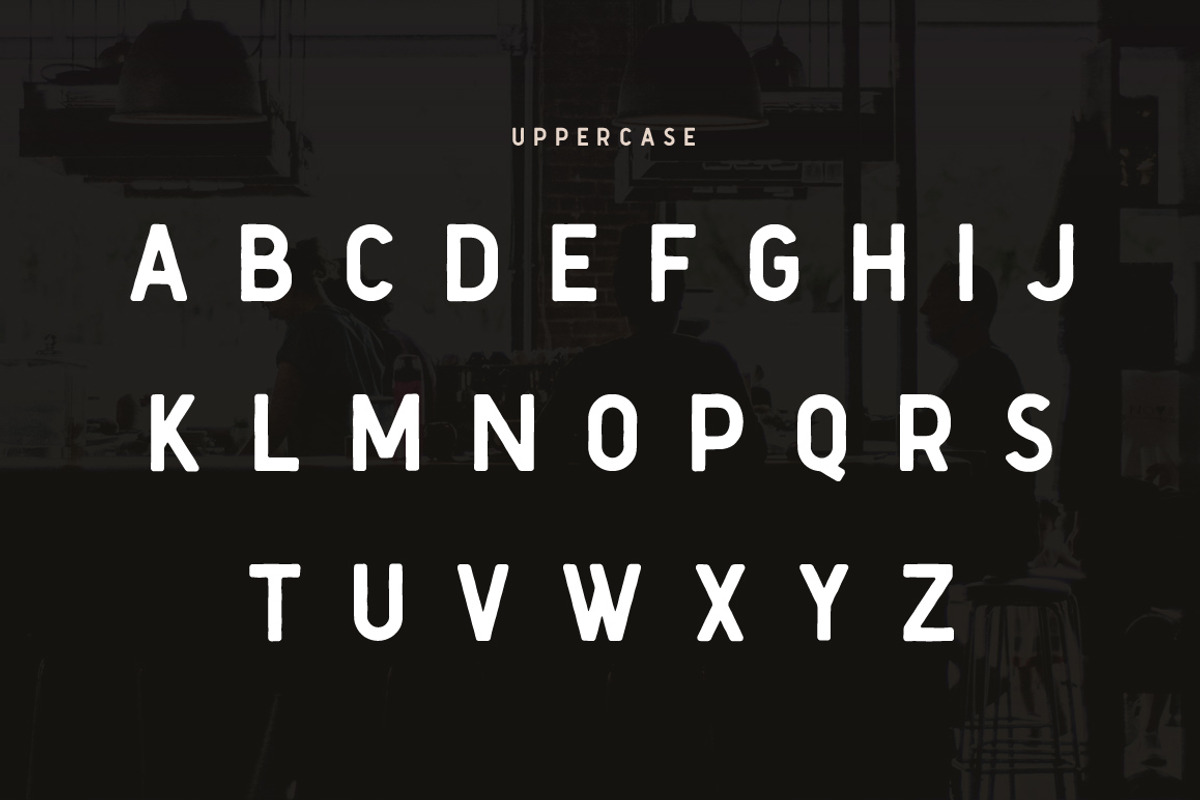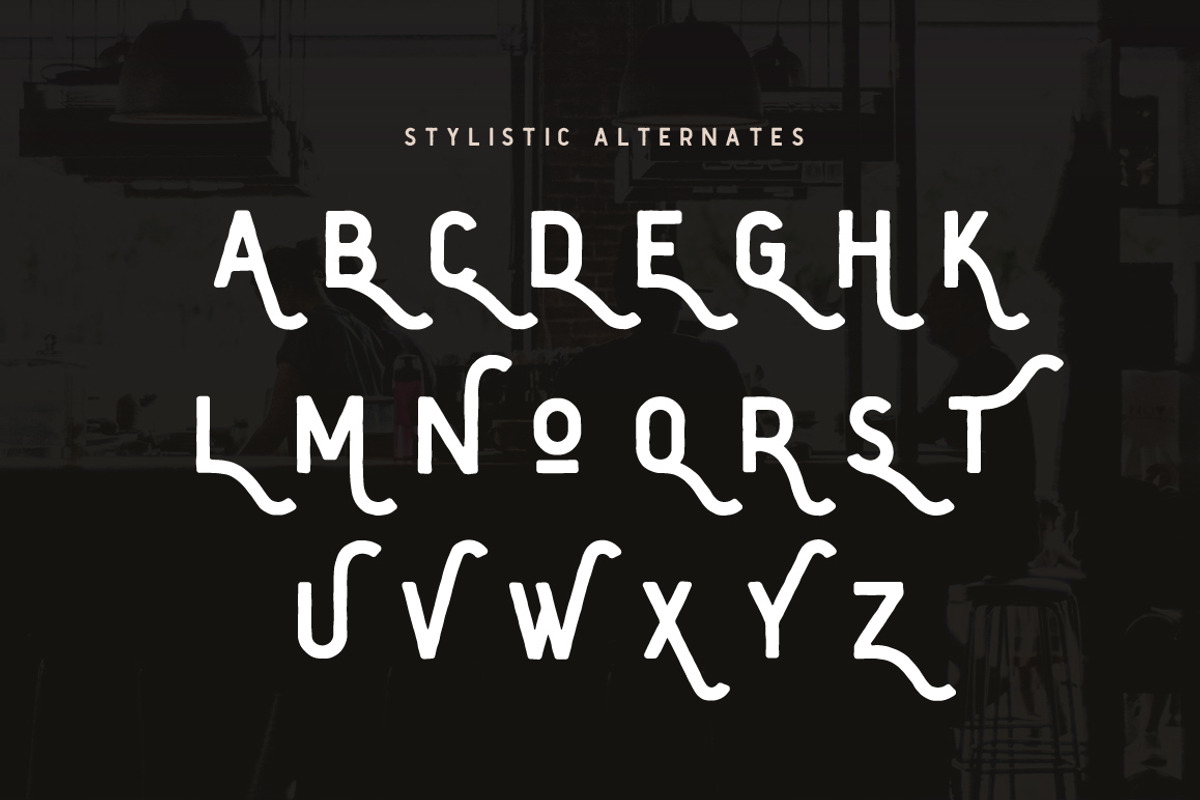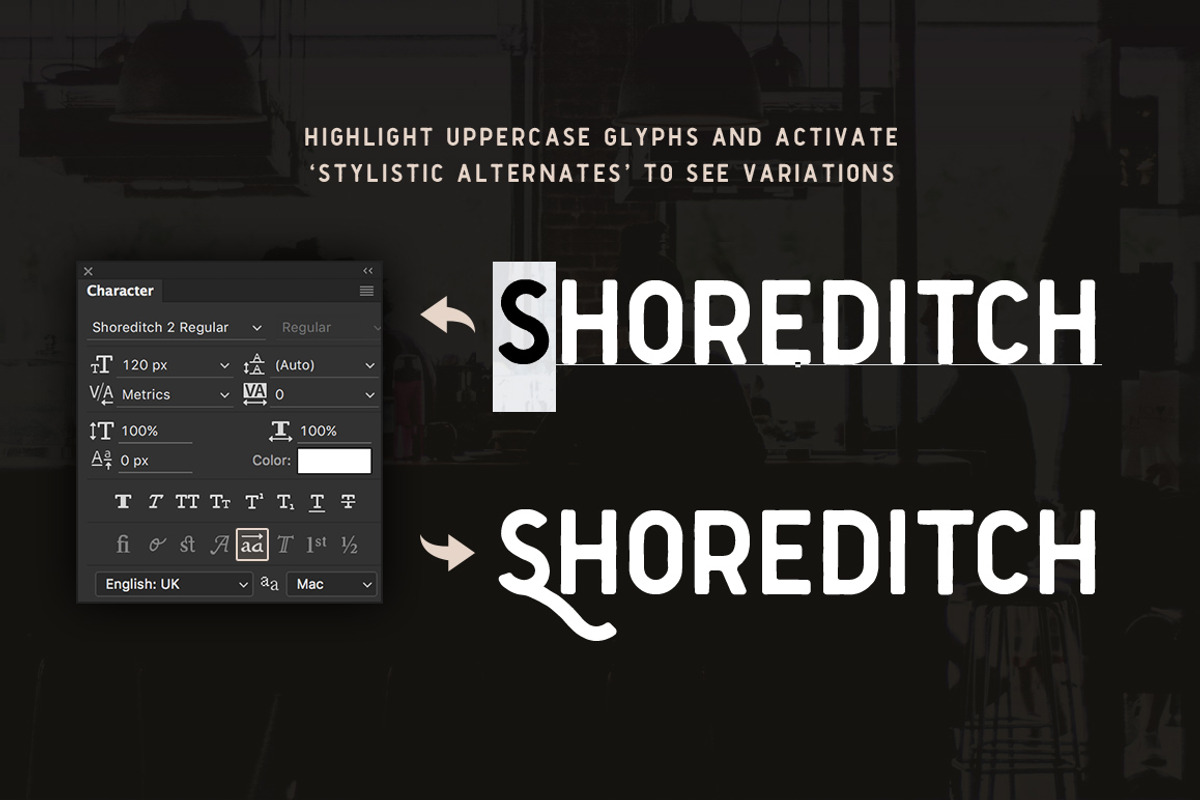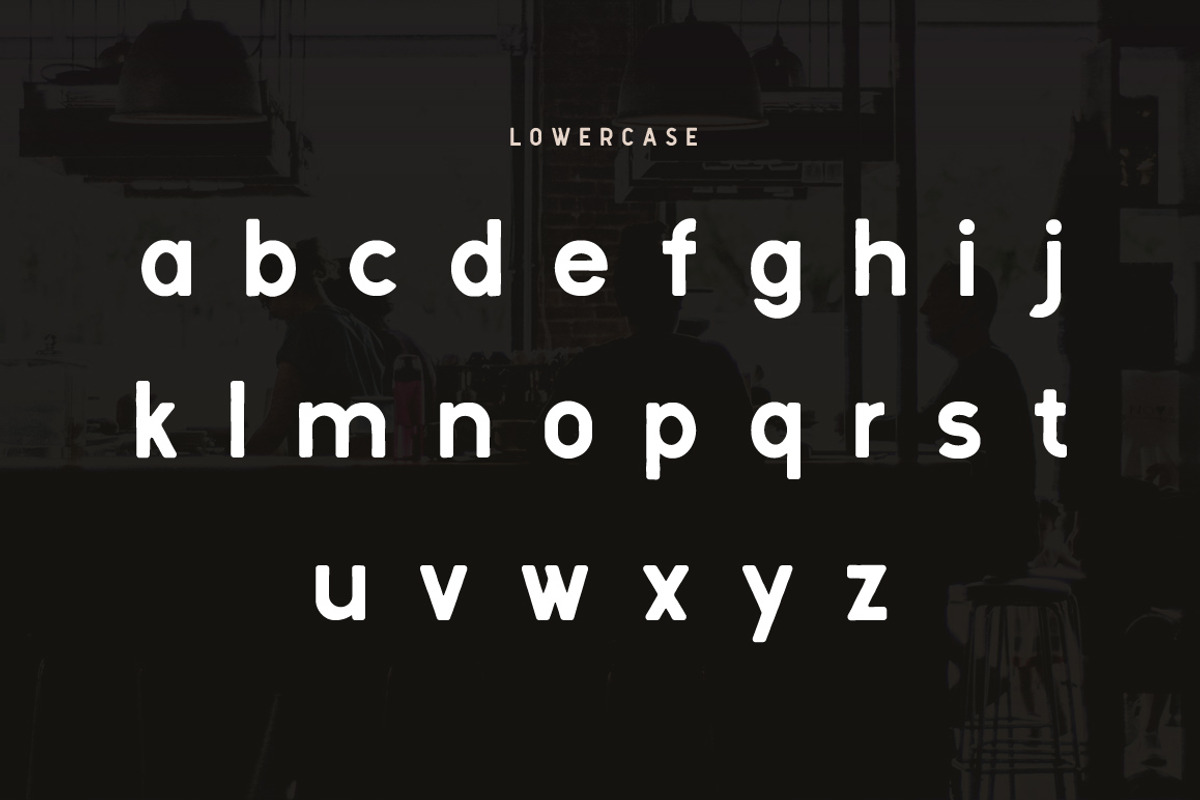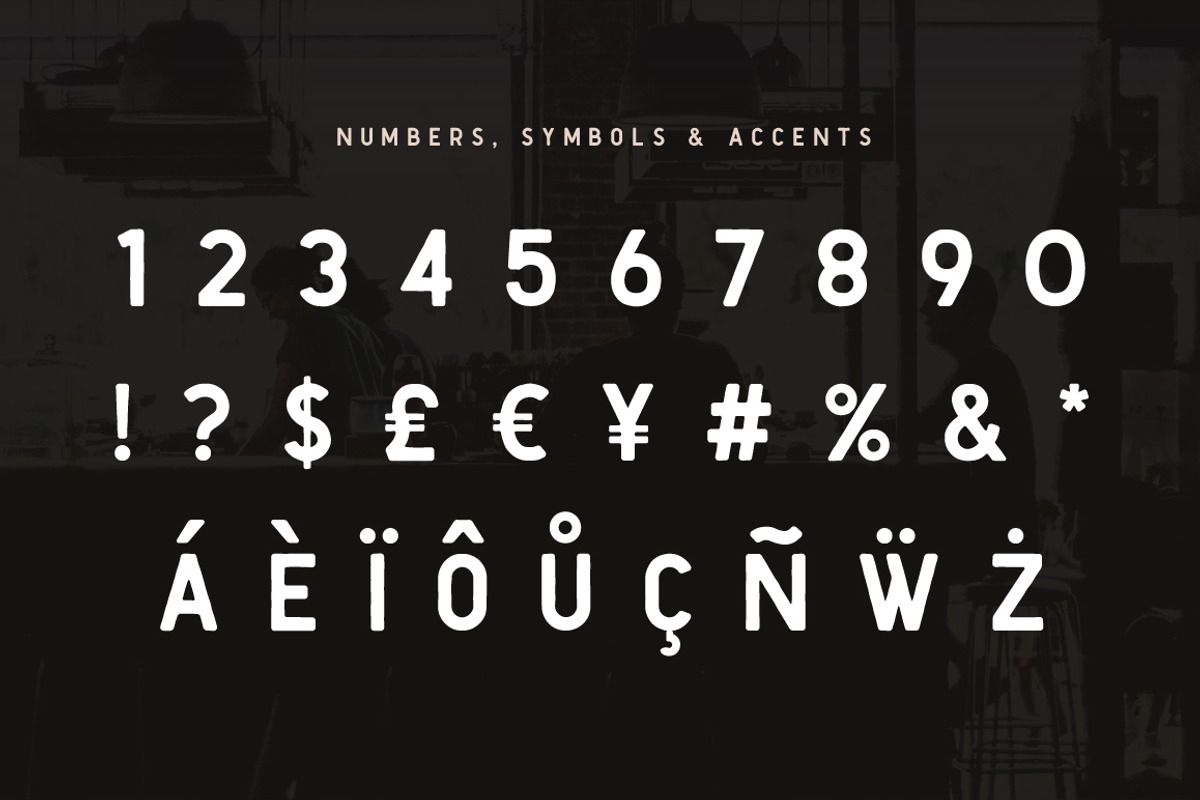
Shoreditch 2 Sans Serif Font
Shoreditch 2 Sans Serif Font by Medialoot is a font selected for branding, posters, packaging, typography.
- Perfect for titles and headlines, included are uppercase and lowercase letters, numbers, symbols and stylistic alternates for extra flair.
- Shoreditch 2 Regular
Why Shoreditch 2 Sans Serif Font is worth a look
Shoreditch 2 Sans Serif Font by Medialoot fits naturally into Branding, posters, packaging, typography.